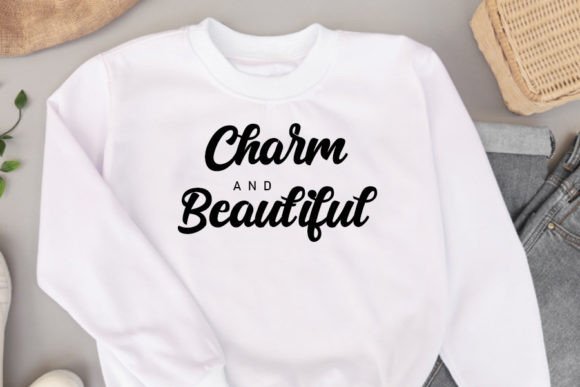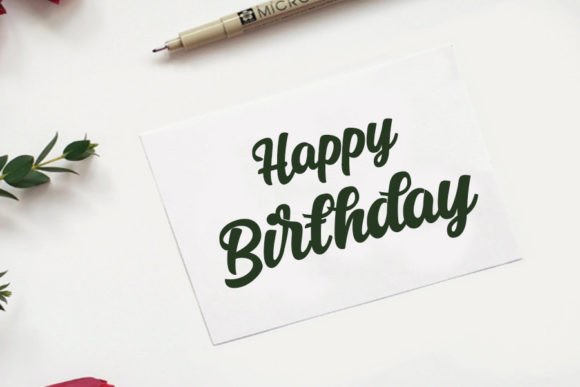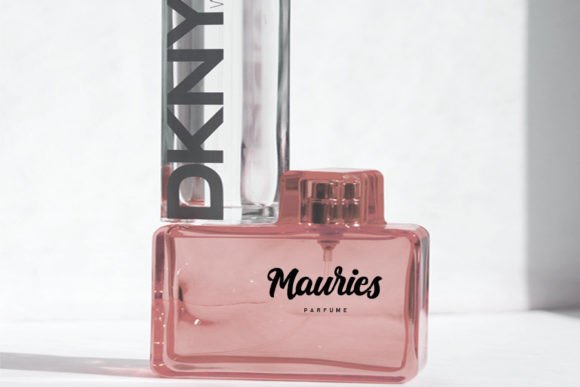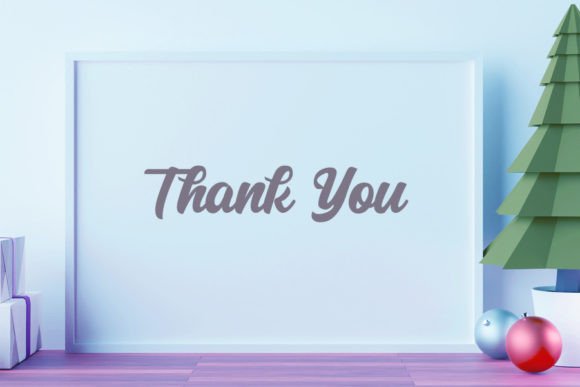
Introducing Flourish Font: The Relaxed and Laid-Back Handwritten Font You Need
Are you tired of using the same old fonts in your designs? Do you want to add a touch of personality and whimsy to your creations? Look no further than Flourish Font, a relaxed and laid-back handwritten font that’s perfect for designers and crafters alike. In this article, we’ll dive into the world of Flourish Font and explore its features, benefits, and uses.
What is Flourish Font?
Flourish Font is a beautiful, handwritten font that’s designed to bring a sense of calm and serenity to your designs. With its relaxed and laid-back vibe, this font is perfect for creating a wide range of projects, from social media graphics and blog posts to invitations and crafts. Whether you’re a professional designer or a DIY enthusiast, Flourish Font is a wonderful asset to have in your font library.
Features of Flourish Font
So, what makes Flourish Font so special? Here are just a few of its key features:
- Handwritten style: Flourish Font has a beautiful, handwritten style that’s perfect for adding a personal touch to your designs.
- Relaxed and laid-back: This font has a calm and serene vibe that’s perfect for creating relaxing and soothing designs.
- Versatile: Flourish Font can be used for a wide range of projects, from social media graphics and blog posts to invitations and crafts.
- Easy to read: Despite its handwritten style, Flourish Font is easy to read and understand, making it perfect for body text and captions.
Benefits of Using Flourish Font
So, why should you use Flourish Font in your designs? Here are just a few of the benefits:
- Adds personality: Flourish Font adds a touch of personality and whimsy to your designs, making them stand out from the crowd.
- Creates a relaxed vibe: This font creates a calm and serene vibe that’s perfect for designs that need to convey a sense of relaxation and tranquility.
- Versatile: Flourish Font can be used for a wide range of projects, making it a great addition to your font library.
- Easy to use: This font is easy to use and pairs well with a wide range of other fonts, making it perfect for designers of all levels.
Uses of Flourish Font
So, what can you use Flourish Font for? Here are just a few ideas:
- Social media graphics: Use Flourish Font to create eye-catching social media graphics that stand out from the crowd.
- Blog posts: Add a touch of personality to your blog posts with Flourish Font, perfect for headings and captions.
- Invitations: Use Flourish Font to create beautiful and unique invitations for weddings, parties, and other special occasions.
- Crafts: This font is perfect for crafters, with uses in card making, scrapbooking, and other paper crafts.
Tips for Using Flourish Font
Here are a few tips for using Flourish Font in your designs:
- Use it sparingly: While Flourish Font is beautiful, it can be overwhelming if used too much. Use it sparingly to add a touch of personality to your designs.
- Pair it with other fonts: Flourish Font pairs well with a wide range of other fonts, so don’t be afraid to experiment and find the perfect combination.
- Experiment with colors: This font looks great in a wide range of colors, so don’t be afraid to experiment and find the perfect hue for your design.
In conclusion, Flourish Font is a beautiful and versatile handwritten font that’s perfect for designers and crafters alike. With its relaxed and laid-back vibe, this font is perfect for creating a wide range of projects, from social media graphics and blog posts to invitations and crafts. Whether you’re a professional designer or a DIY enthusiast, Flourish Font is a wonderful asset to have in your font library. So why not give it a try and see how it can enhance your designs?